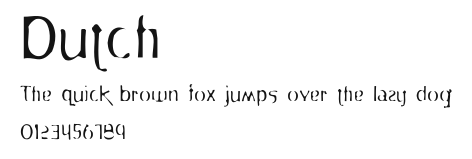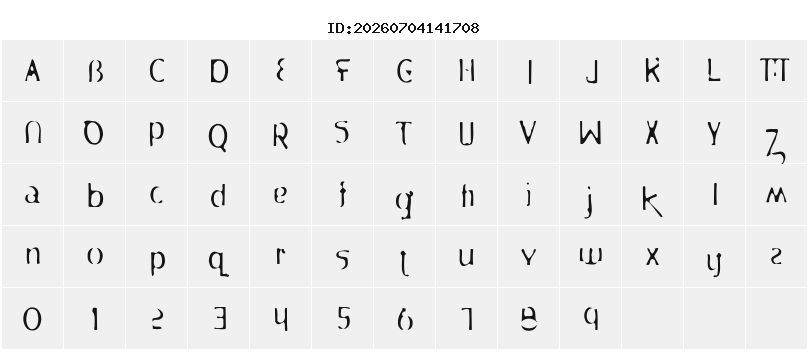
Dutch Preview
• Font Name: Dutch
• Full Font Name: Dutch-Oven
• PostScript Name: Dutch-Oven
About Dutch.ttf
Dutch.ttf is a modern, elegant sans-serif font designed for ultimate readability and visual harmony. Perfect for branding, headlines, web design, and print materials.